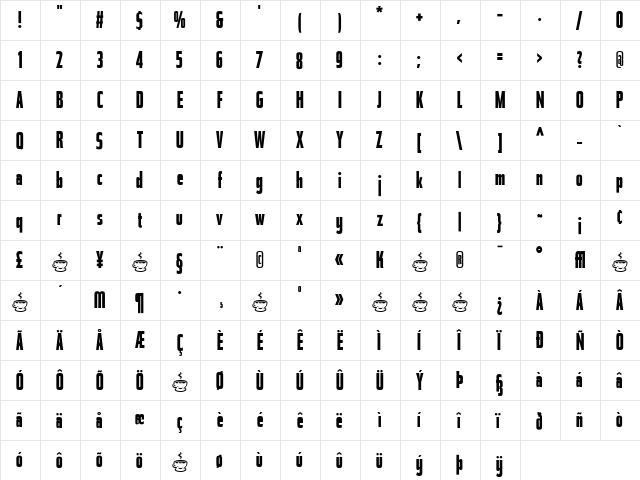
Tasse Bold Font Preview
Tasse Bold
Tasse Bold Font Details
| Foundry | Copr. Guy Jeffrey Nelson. Designed by Guy Jeffrey Nelson. Produced by The Font Bureau, Inc |
| Copyright | Copr.1994, Guy Jeffrey Nelson. Designed by Guy Jeffrey Nelson. Produced by The Font Bureau, Inc. Based on Paul Renner s Topic. |
Design Context for Tasse Typeface
Tasse takes a measured approach to typography — its balanced proportions and neutral character make it a reliable workhorse for both digital and print work. Its bold stroke weight gives it real presence on the page.